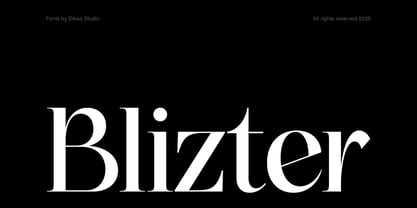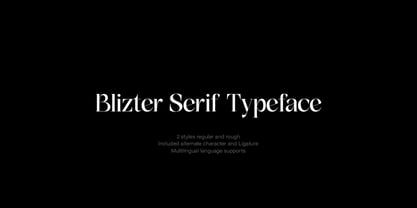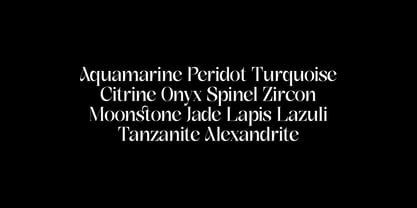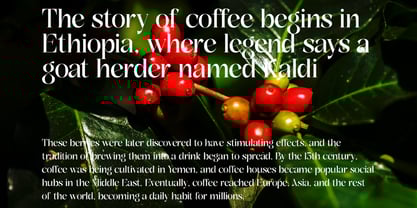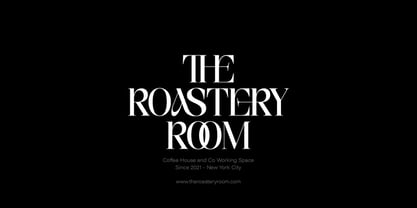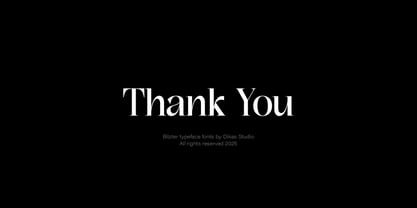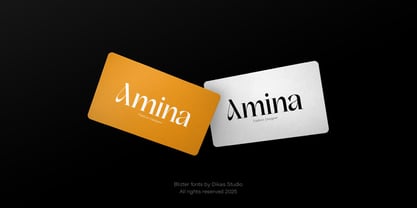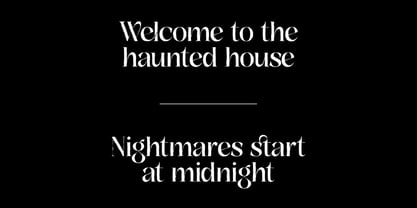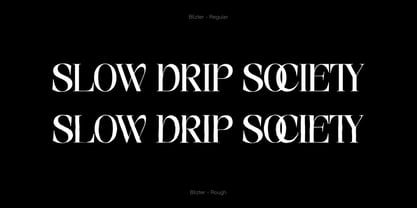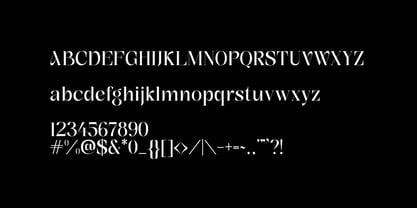
DKS Blizter
by Dikas Studio
The DKS Blizter Font Family was designed by Hasnul Bolkiah and published by Dikas Studio. DKS Blizter contains 2 styles and family package options.
Blizter – Elegant & Stylish Serif
Hello everyone! I'm excited to introduce my newest creation — Blizter, a modern serif typeface that blends sharp contrast with smooth, graceful curves. The result is a font that feels refined, sophisticated, and full of character. Blizter has 2 styles, regular and rough, which also include alternate characters and ligatures.
Perfectly suited for fashion branding, luxury packaging, editorial designs, or high-end café logos, Blizter adds a touch of class and sophistication to any visual presentation.
Designers: Hasnul Bolkiah
Publisher: Dikas Studio
Foundry: Dikas Studio